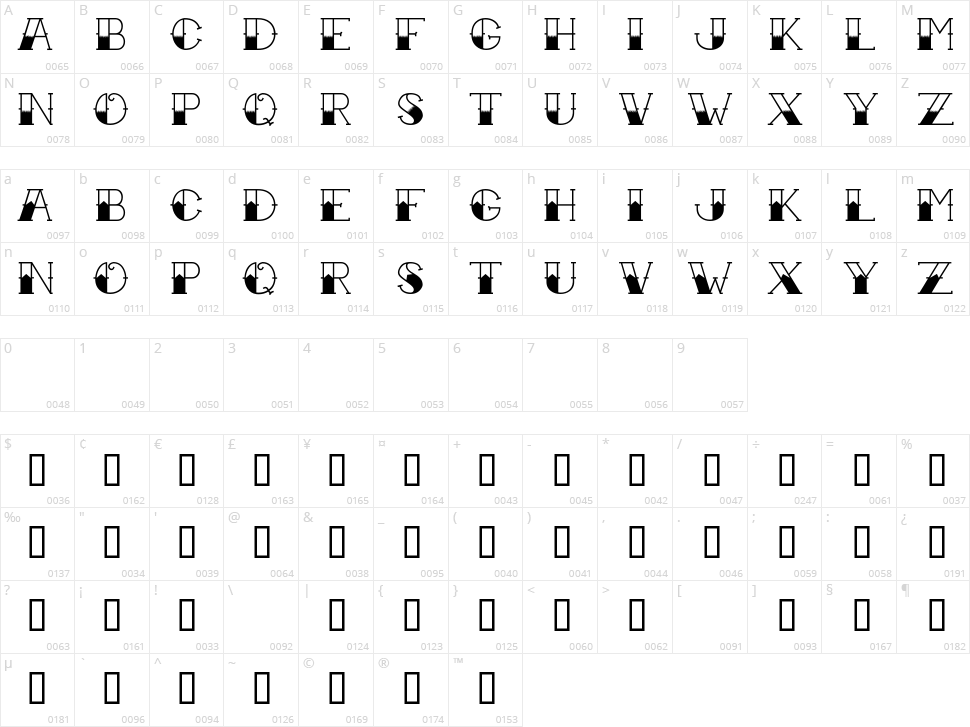
TATTOO INK is a *FREE* font inspired by the multitude of tattoo-lettering styles drilled
into people's skin everyday worldwide.
TATTOO INK contains letters only - no punctuation or numbers are provided. Uppercase
letters contain a scratchfull, while lowercase letters contain angled fill.
| Designer Name: | Ryan Splint |